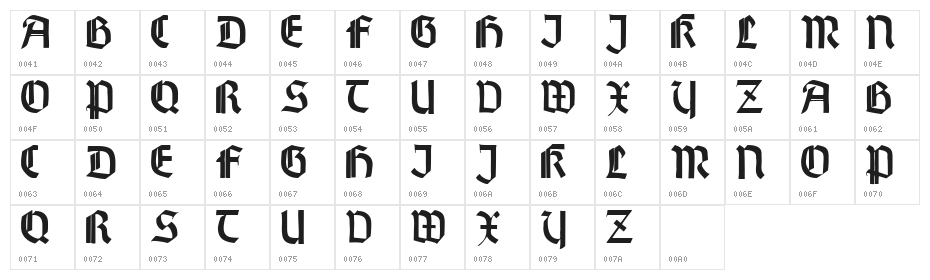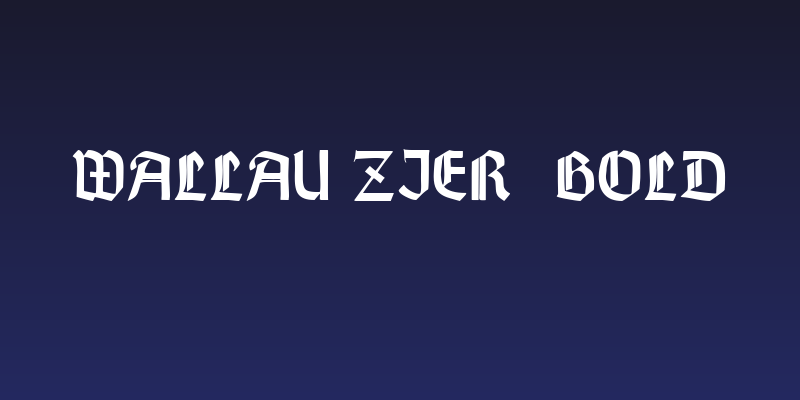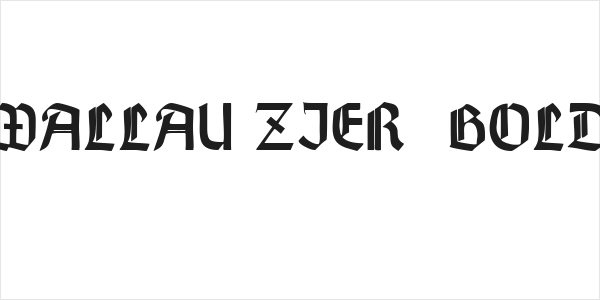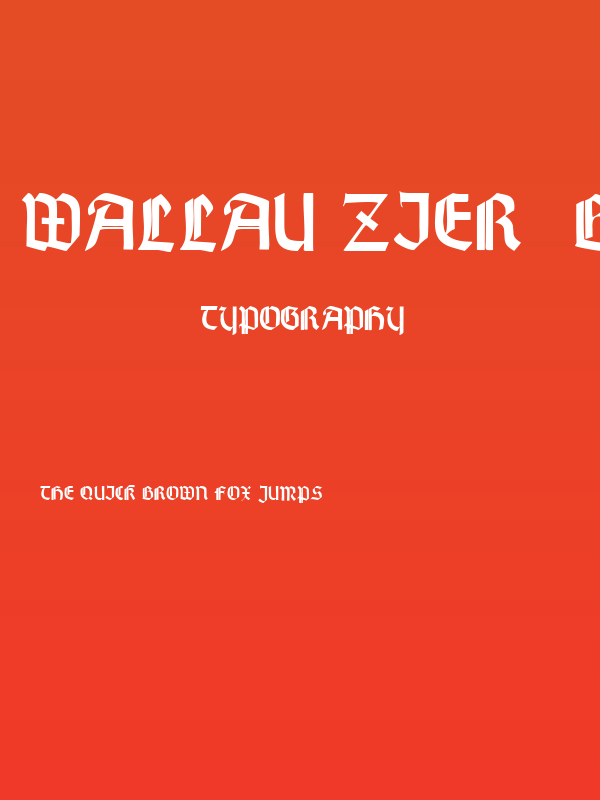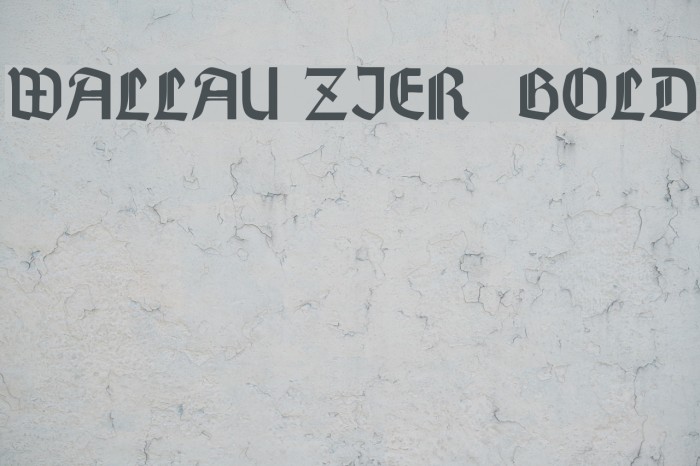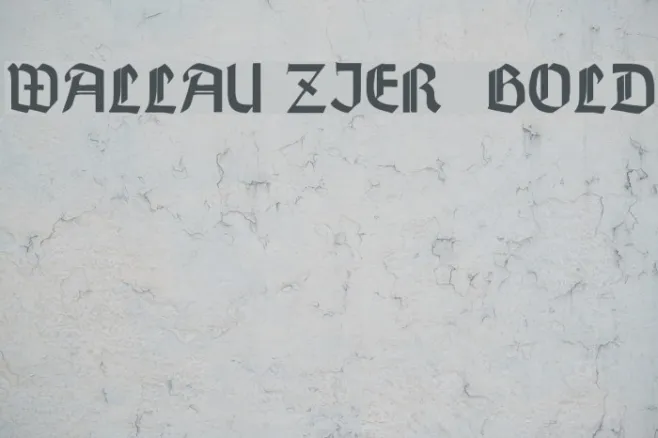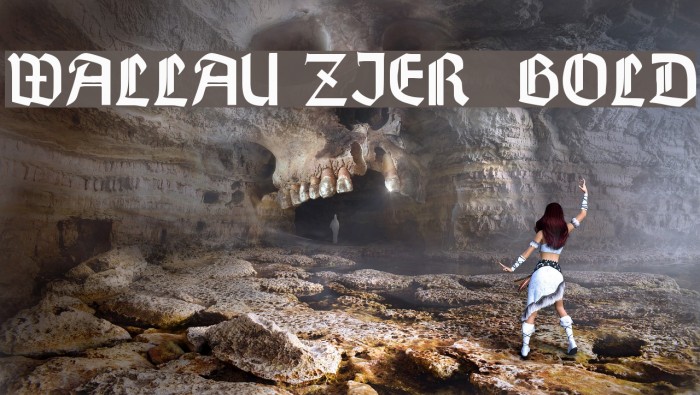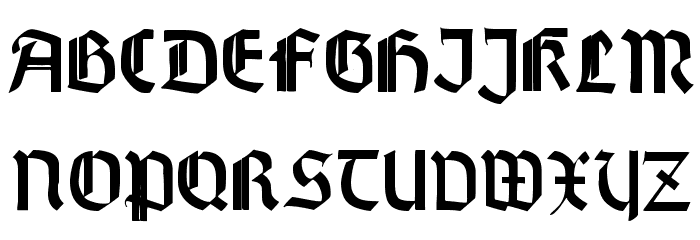
Wallau Zier Bold Font
✎ Gothic
Wallau Zier Bold Description
This font features a bold and striking blackletter style, reminiscent of traditional Gothic script. The characters are characterized by their sharp, angular lines and dramatic flourishes, which give them a distinct medieval appearance. The uppercase letters are particularly ornate, with intricate details that enhance their visual impact. The font's bold weight and high contrast between thick and thin strokes make it highly legible while maintaining its decorative appeal. Its unique style is perfect for projects that require a historical or vintage touch.
| Categories | Gothic |
| Overall Style | Vintage |
| Use Case | Headlines, Logos, Decorative text |
| Proposed Projects | Ideal for use in historical documents, vintage posters, book covers, and branding that requires a medieval or Gothic aesthetic. |